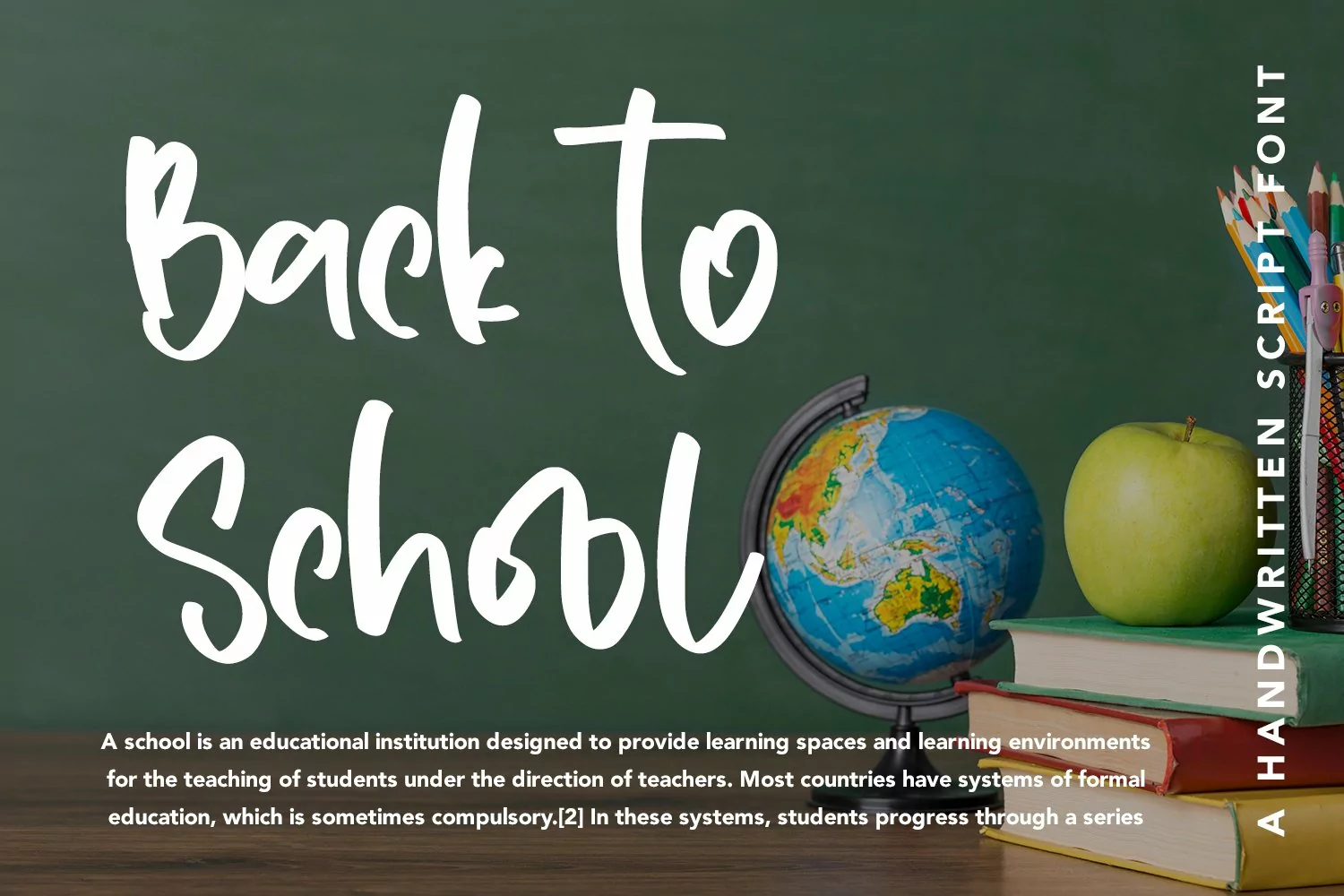
Homeschool - Handwritten Script Font that contain lowercase, uppercase, symbol, and also support multi language. There’s a lot ligatures in this font. This Font also comes with ligatures, alternates and many more. this font suitable for fashion, branding, catalog and other design what you want.